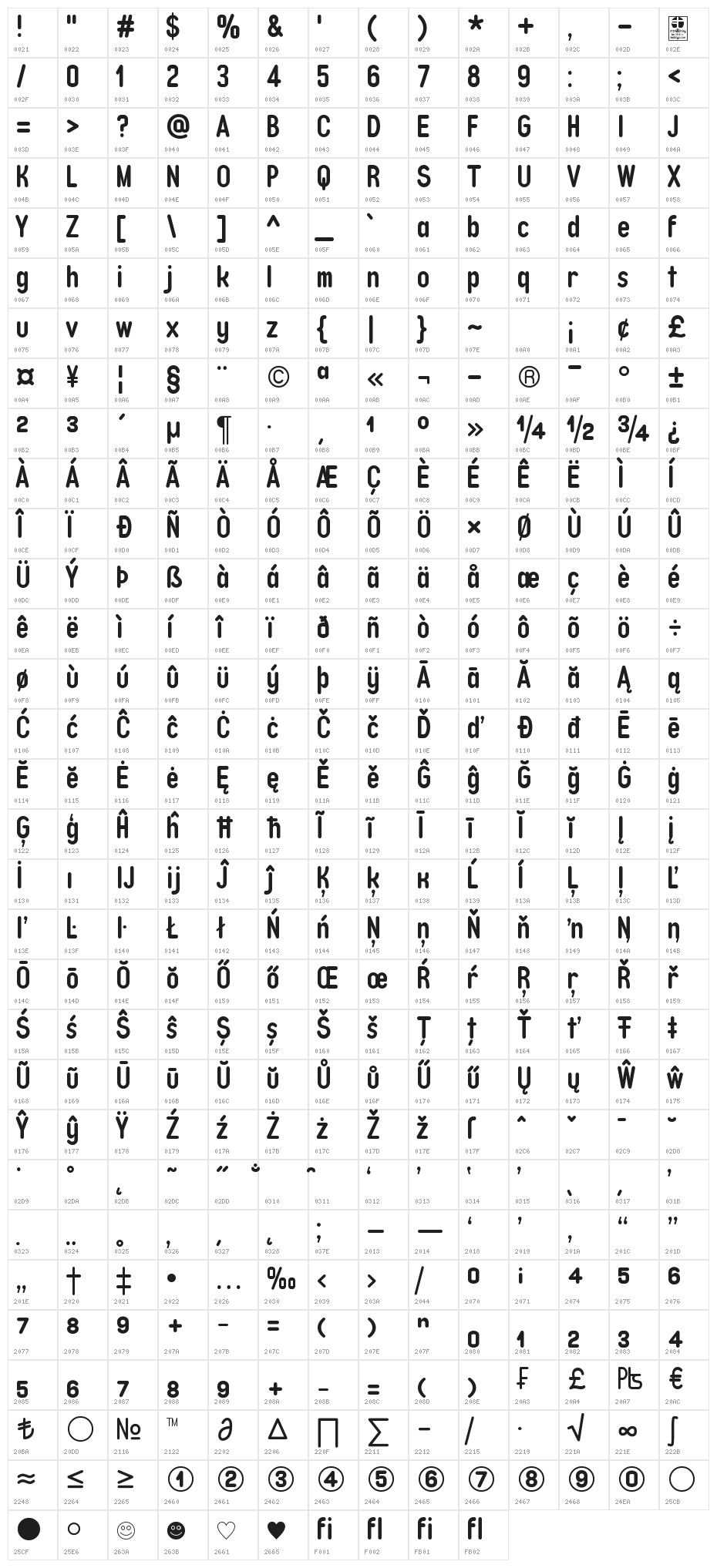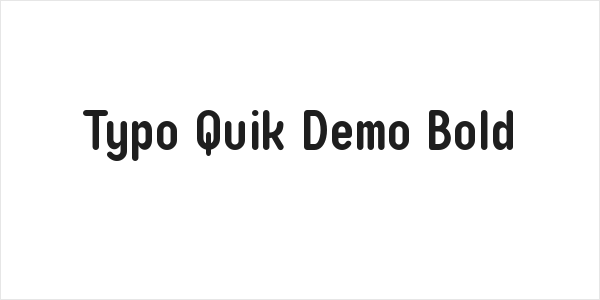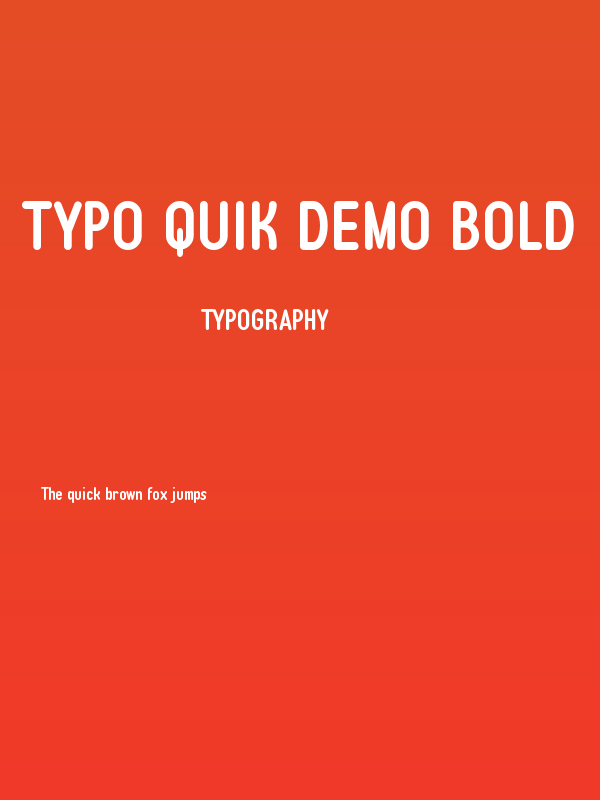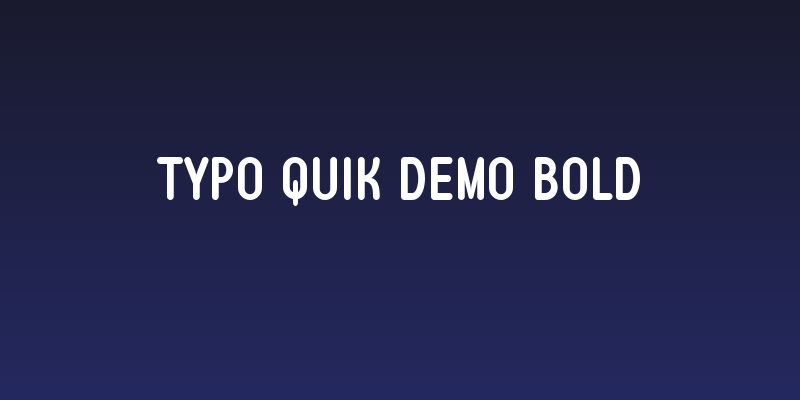
Typo Quik Demo Bold Font
Typo Quik Demo Bold Description
This font features a bold, rounded style with a modern and approachable appearance. The characters are evenly spaced, providing a clean and organized look. The uppercase and lowercase letters maintain a consistent weight, enhancing readability. The numerals and special characters are designed to match the overall aesthetic, making it versatile for various applications. Its boldness and rounded edges give it a friendly and inviting feel, suitable for both digital and print media.
| Proposed Projects | Ideal for branding, headlines, posters, and digital content where a friendly and modern look is desired. |